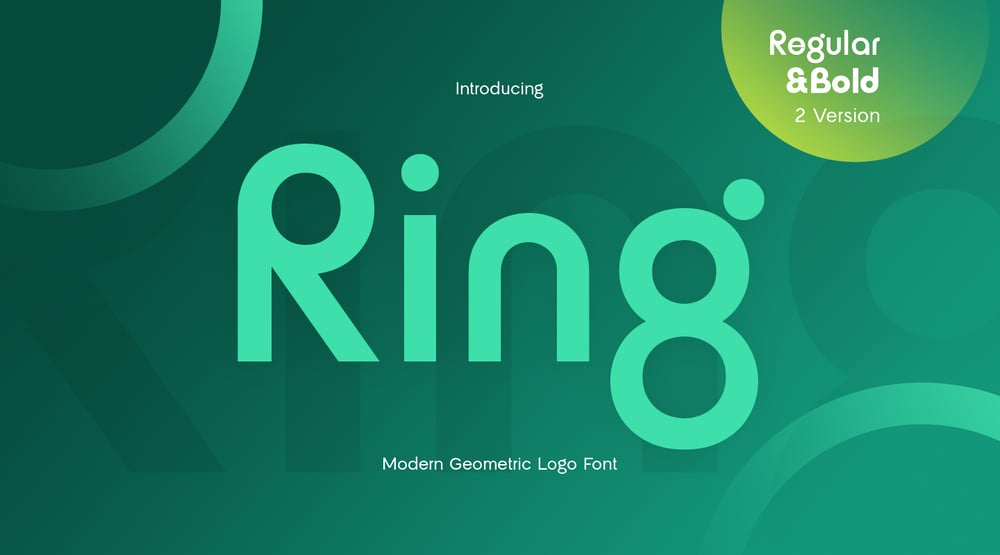
Ring SS Font Family was designed by Zamroni Hamzah and published by Sensatype Studio. Ring SS contains 2 styles and family package options. Ring – Modern Geometric Logo FontRing is a modern geometric logo font designed to bring precision and style to any branding project. With its clean, minimalist lines and geometric forms, Ring is ideal for tech companies, corporate logos, and modern product branding. Its simple yet powerful design reflects a balance of creativity and professionalism, ensuring a sleek and impactful visual identity.Crafted with attention to detail, Ring offers versatility across a range of applications, from business cards to product packaging and digital platforms. Its unique letter shapes create a cohesive and polished look, perfect for brands looking to make a bold yet refined statement.Ring comes equipped with alternative characters and supports multiple languages, making it an essential tool for designers looking for a modern, high-quality font that enhances both legibility and aesthetic appeal.Ring Modern Geometric Logo Font Features: Regular & Bold Version Geometric Alternative Characters Ready Unique Punctuation, Number, and Symbol Include 4 formats already Uppercase and Lowercase Multilingual Support Opentype Features Thank you and best of luck with your designs!